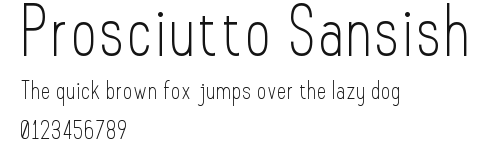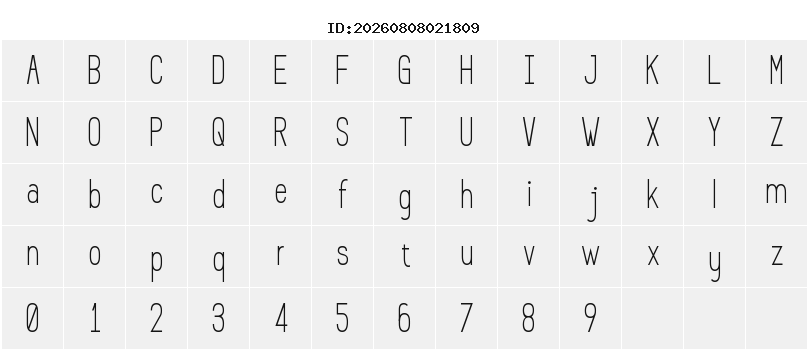
• Font Name: Prosciutto Sansish
About Prosciutto Sansish.ttf
Prosciutto Sansish.ttf is a modern, elegant sans-serif font designed for ultimate readability and visual harmony. Perfect for branding, headlines, web design, and print materials.